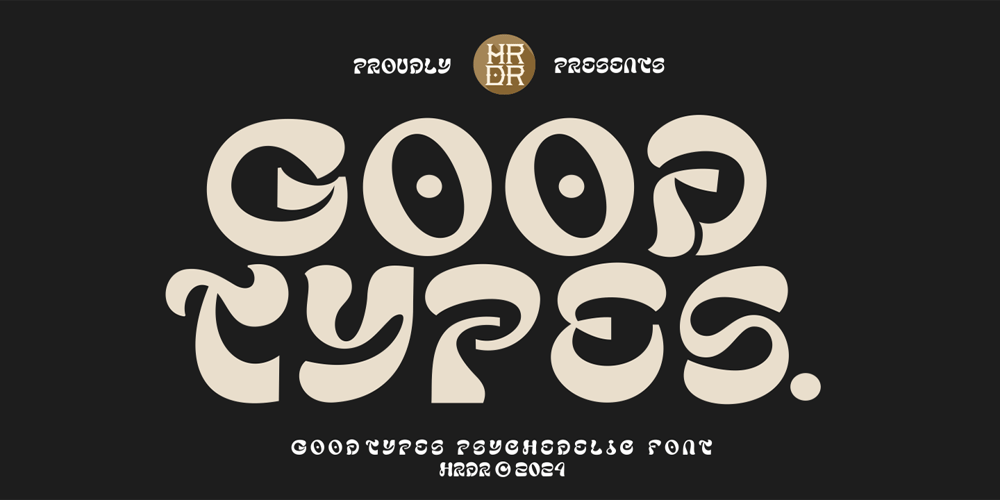
Good Types Font Family was designed by Dede Mulyadi and published by HRDR. Good Types contains 1 styles and family package options. Good Types is a psychedelic style inspired typeface with All capital alphabet. Unique tripped out lettering makes this font perfect for those band poster, trippy logos, funky posters, quotes and more.